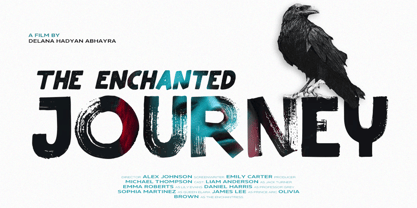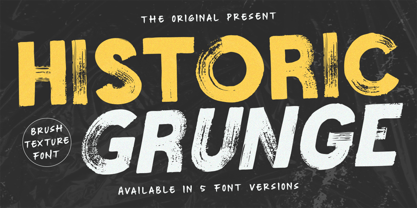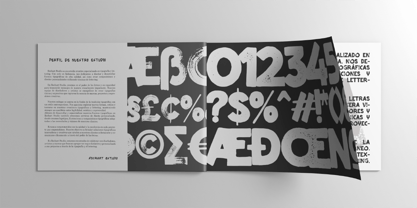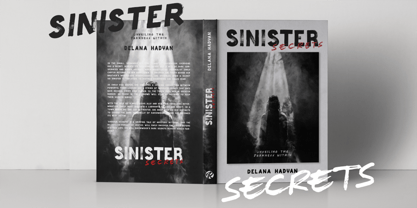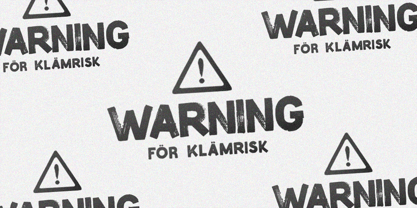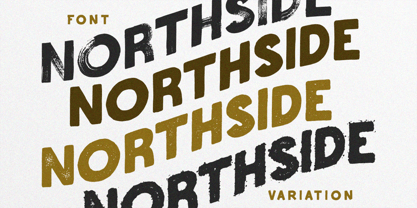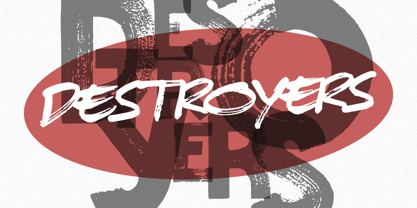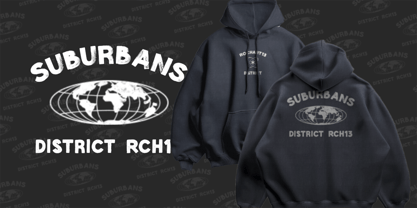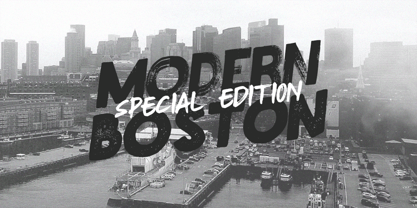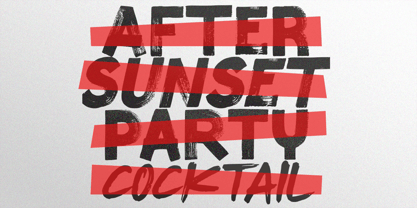
Historic Grunge
by Rochart
The Historic Grunge Font Family was designed by Rochadi Sudarma and published by Rochart. Historic Grunge contains 10 styles and family package options. More about this family
Historic Grunge is a raw and expressive Sans Serif typeface with an authentic real brush texture. Created using an actual brush, every stroke carries an organic, hand-painted feel, making it perfect for designs that demand boldness, energy, and character. The natural texture and irregular edges give it a rebellious yet artistic touch, evoking a sense of history, street culture, and raw creativity.
5 Unique Styles to Match Your Creative Vision:
• Black – Solid and bold, perfect for high-impact designs.
• Brush – Raw and expressive, preserving the natural brush texture.
• Stamp – A rugged, distressed version with a vintage appeal.
• Inked – Smooth yet textured, resembling traditional ink lettering.
• Signature – A refined script style for a personal touch.
This font, perfect for : Vintage & Retro Designs, Branding & Packaging, Apparel & Merchandise, Posters & Album Covers, Social Media Graphics, Handcrafted Logos, Editorial & Magazine Layouts.
Whether you're crafting a bold statement or adding a touch of handmade authenticity, Historic Grunge delivers the perfect blend of character and versatility. Elevate your designs with its real brush texture and timeless grunge aesthetic!